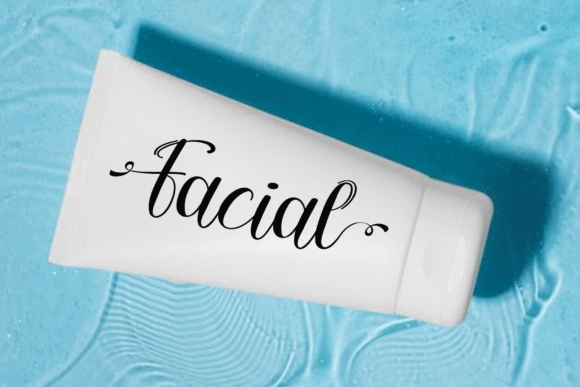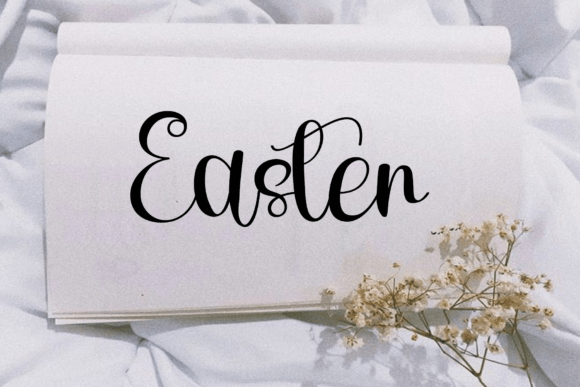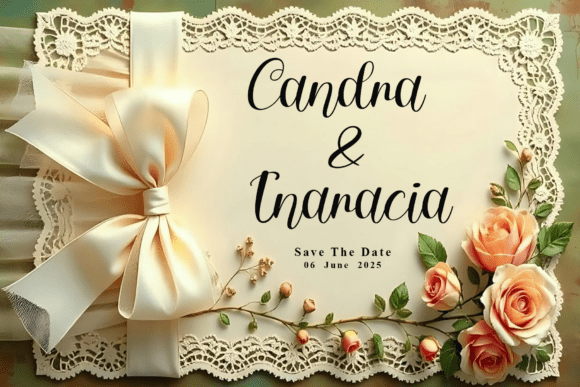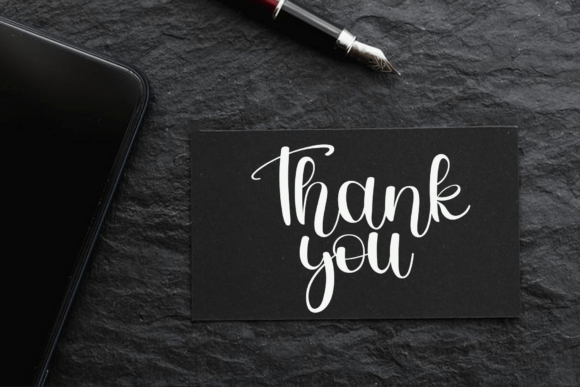
The Perfect Touch: Unlocking the Elegance of Feather Font
Have you ever been working on a design project, pouring your heart and soul into every detail, only to feel like something’s missing? A spark of creativity, a dash of personality – that elusive element that elevates your work from good to great? For designers, finding that special something can be a game-changer.
Enter Feather Font, a stylish and sophisticated handwritten font that brings a touch of timeless classic calligraphy to your designs. With its impeccable form and contemporary atmosphere, Feather Font is the perfect addition to any project seeking elegance and class.
For designers, Feather Font is a valuable asset that can breathe new life into your work. Whether you’re crafting a wedding invitation, a branding campaign, or a social media post, this font is sure to leave a lasting impression.
Feather Font Key Features
- Size: 128 glyphs, including uppercase and lowercase letters, numbers, and punctuation
- Unique Characteristics: Designed to be highly legible and visually appealing, with a focus on minimalism and simplicity
- Language Support: Supports multiple languages, including Latin, Greek, and Cyrillic scripts
Feather Font Review
Overall, I’d say the Feather Font is a solid addition to any designer’s toolkit. ✨ The font’s unique blend of vintage and modern elements gives it a distinctive look that can add a touch of personality to any project. The weight and size options make it easy to customize, and the font’s readability is excellent even at smaller sizes.
One of the standout features of the Feather Font is its versatility. ✨ It works well for both digital and print projects, and can be used for a wide range of applications from logos to body text. The font’s subtle imperfections also give it a hand-crafted feel that can add a touch of warmth and character to your designs.
- ⚠️ The font may not be suitable for projects where a completely clean and minimalist look is required, as its unique character and flair may be distracting in these situations.
- ⚠️ Some users may find the font’s weight options a bit limited, particularly if they’re looking for a more extreme range of weights.
Overall, I’d recommend the Feather Font to designers who are looking for a unique and versatile font that can add some personality to their projects. While it may have some limitations, its strengths far outweigh its weaknesses, and it’s definitely worth adding to your font library.
To get the most out of Feather Font, use it for:
1. Creating eye-catching titles and headings.
2. Designing modern and minimalist logos.
3. Adding a touch of elegance to business presentations.
4. Creating unique and personalized wedding invitations.
Alternatives to Feather Font for Designers
Open Sans is a clean and modern sans-serif font designed by Steve Matteson. It’s ideal for digital products, websites, and apps. Open Sans is more versatile than Feather Font, offering a wider range of weights and styles. It’s a popular choice for branding and advertising materials.
Montserrat is a geometric sans-serif font designed by Julieta Ulanovsky. It’s perfect for urban, modern, and minimalist designs. Montserrat is more condensed than Feather Font, making it suitable for headings and titles. It’s a great choice for logos, business cards, and other print materials.
Inter is a modern sans-serif font designed by Rasmus Andersson. It’s designed for digital use and is highly legible on screens. Inter is more neutral and versatile than Feather Font, making it suitable for a wide range of applications, from web design to branding and advertising.